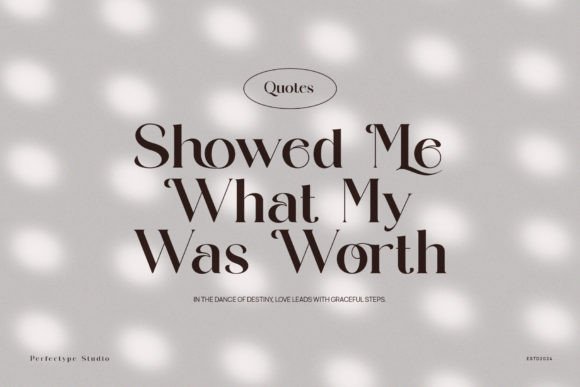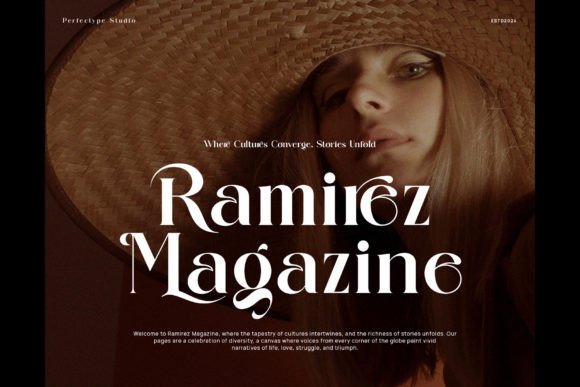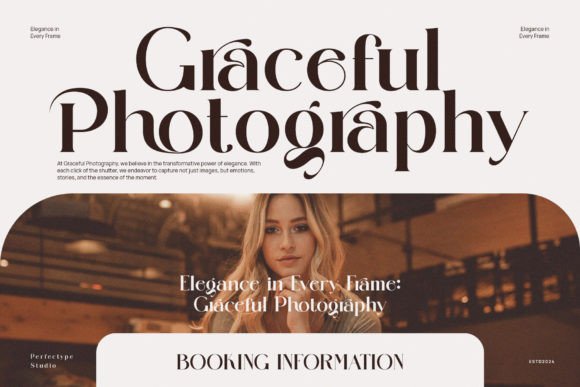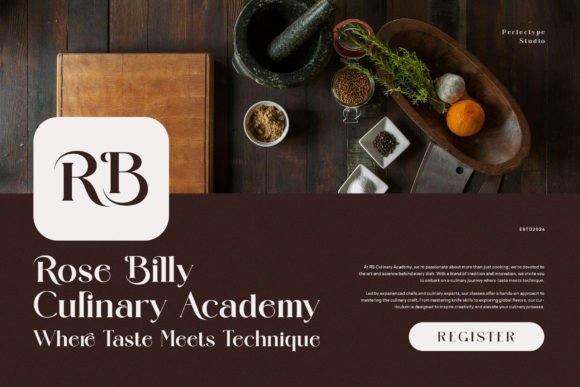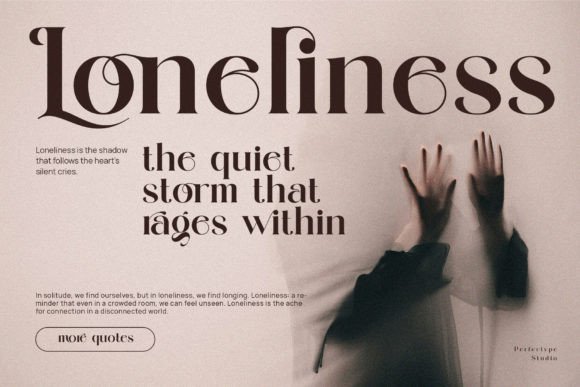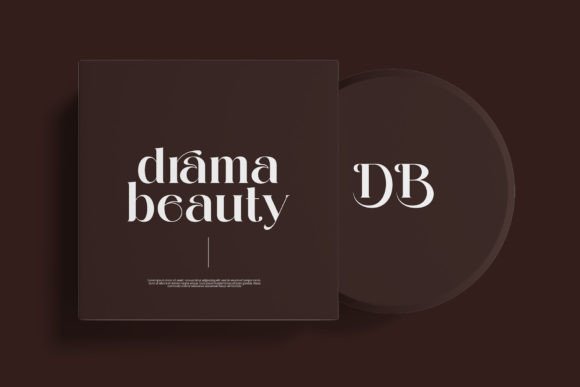
Introducing Belina Ramore Font: Elevate Your Designs with Elegance
In the world of typography, a font can make or break the aesthetic of a project. For designers and crafters seeking to add a touch of sophistication and class to their work, Belina Ramore font is an excellent choice. This elegant serif font boasts a delicate and refined look, making it perfect for a wide range of applications.
The Characteristics of Belina Ramore Font
Belina Ramore is characterized by its balanced and varied design. It strikes the perfect chord between being too thin and too thick, making it versatile for various design needs. The font features:
- Delicate and Classy Look: The font’s design ensures that it adds an air of sophistication to any project it’s used in.
- Balanced and Varied: The strokes are well-proportioned, providing a harmonious look that enhances readability and aesthetic appeal.
- Elegant Serif: The serif details add a traditional touch, making Belina Ramore suitable for formal and creative projects alike.
Design Philosophy Behind Belina Ramore
The design of Belina Ramore font is rooted in the philosophy of enhancing beauty through typography. The creators aimed to develop a font that could seamlessly blend into various design contexts, from editorial and advertising to digital interfaces and crafting. The goal was to create a font that not only looks good but also elevates the overall quality and appeal of the projects it’s used in.
Versatility of Belina Ramore Font
One of the key advantages of Belina Ramore font is its versatility. It can be used across a multitude of platforms and for various purposes, including:
- Print Design: Ideal for brochures, posters, magazines, and any printed material that requires an elegant touch.
- Digital Design: Suitable for website headers, digital advertising, and social media graphics where a classy look is desired.
- Crafting and DIY Projects: Perfect for crafting projects, such as handmade cards, invitations, and scrapbooking.
Why Choose Belina Ramore Font?
Choosing Belina Ramore font for your projects comes with several benefits:
- Unique Aesthetic: It provides a unique and distinctive look that can set your project apart.
- Readability: The balanced design ensures that the text remains readable, even at smaller sizes.
How to Use Belina Ramore Font Effectively
To get the most out of Belina Ramore font, consider the following tips:
- Pair with Complementary Fonts: Use it in combination with sans-serif fonts for contrast and visual interest.
- Adjust Font Sizes: Play with different font sizes to create a hierarchy of information and add depth to your design.
- Experiment with Colors: While the font looks great in black, don’t be afraid to experiment with colors that match your project’s theme.
Belina Ramore font is a beautiful addition to any designer’s toolkit. Its elegant serif design, balanced and varied strokes, and versatile nature make it suitable for a wide array of projects. Whether you’re working on a professional design or a personal crafting project, Belina Ramore can help you achieve that sophisticated and classy look you’re aiming for. Explore the possibilities of Belina Ramore font and elevate your designs to new heights of elegance and refinement.